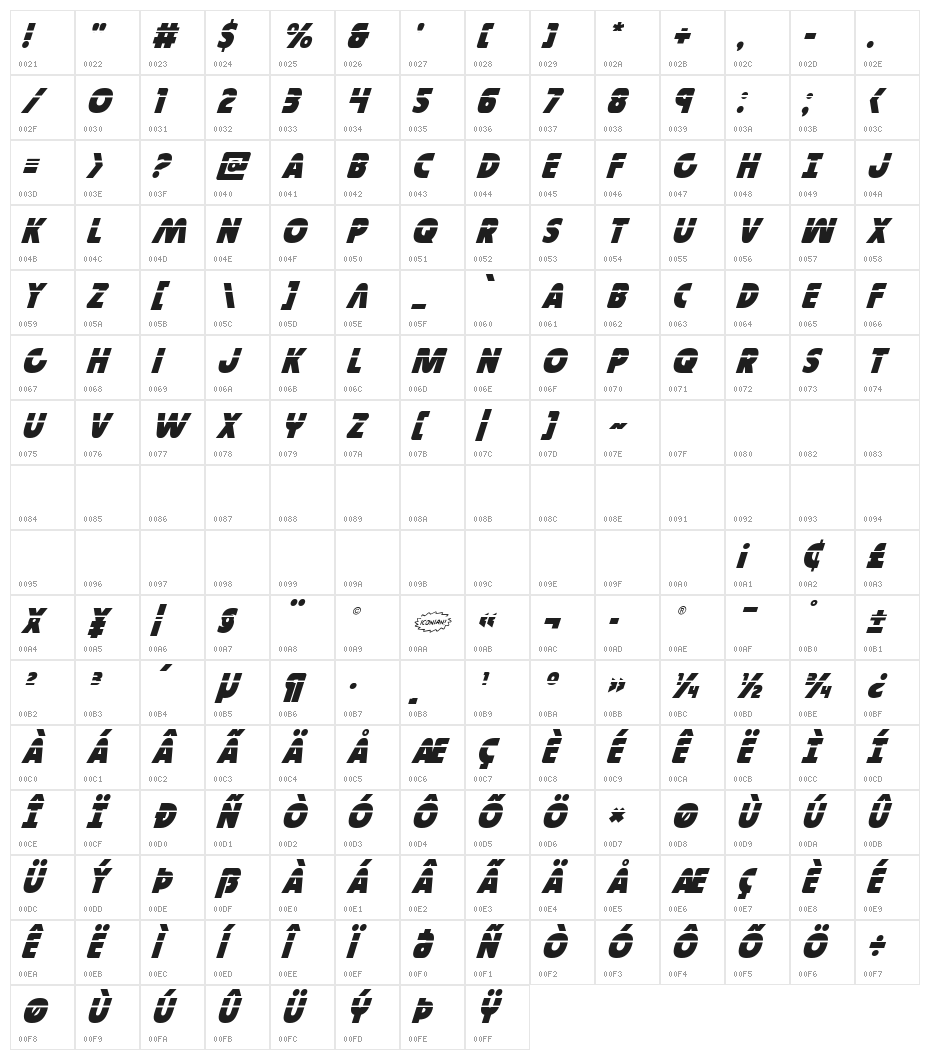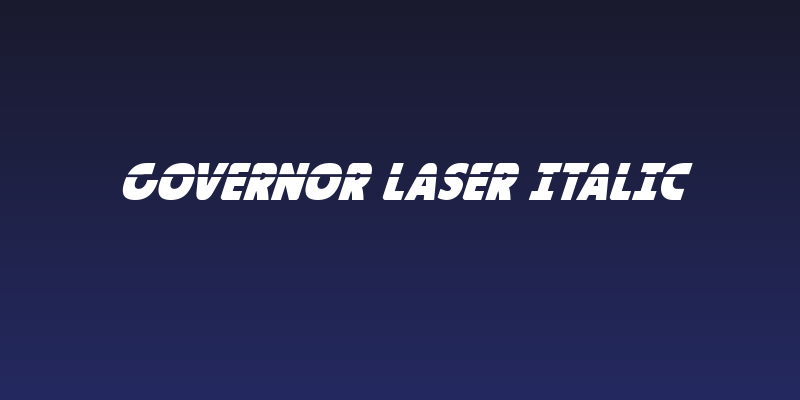
Governor Laser Italic Font
Governor Laser Italic Description
This font features a bold and dynamic style with a strong italic slant, giving it a sense of motion and energy. The characters are wide and robust, with a distinct geometric influence that adds a modern touch. The uppercase and lowercase letters maintain a consistent weight, ensuring readability while adding a unique flair. The numbers and special characters are designed to match the boldness of the alphabet, making them stand out effectively. This font's striking appearance makes it ideal for projects that require a strong visual impact.